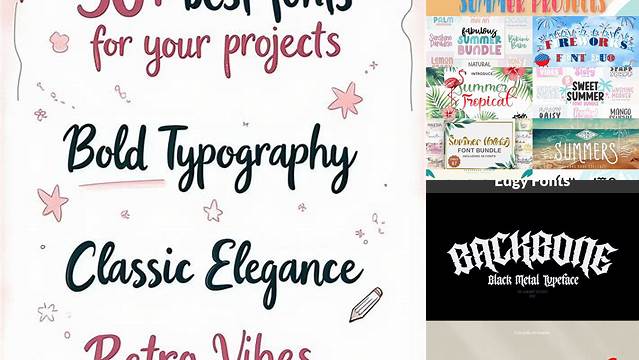
Cool Fonts: Free Downloads To Elevate Your Design
Hey there, design enthusiasts! Ready to jazz up your projects with some awesome typography? Finding the perfect font can be a game-changer, whether you're working on a website, a presentation, or even just a cool social media post. Let’s dive into the world of cool fonts free download and explore how you can snag some amazing typefaces without spending a dime. Get ready to level up your design game, guys!
1. The Allure of Unique Typography
So, why is typography so important anyway? Well, think of it as the voice of your design. A killer font can convey emotion, personality, and even the entire message you're trying to send. A playful, bubbly font screams fun and creativity, while a sleek, modern font communicates professionalism and innovation. The right typography can grab attention, set the tone, and make your content stand out from the crowd. Plus, using unique and cool fonts can help you establish a distinct brand identity. Ever seen a logo and instantly recognized the company just from the font? That's the power of typography, my friends! And the best part? You don’t always have to pay an arm and a leg to get your hands on some awesome fonts. There are tons of resources out there offering cool fonts free download. From quirky handwritten styles to bold display fonts, the possibilities are endless. By exploring these free options, you can experiment with different looks and find the perfect match for your projects without breaking the bank. Remember, choosing the right font is like picking the perfect outfit – it needs to fit the occasion and make a statement. So, let's get hunting for those free gems and start creating some visually stunning designs!
4. Trendy Font Styles Right Now
Want to stay ahead of the curve? Knowing what's hot in the font world can give your designs that extra edge. Right now, we're seeing a lot of love for retro and vintage fonts. Think groovy serifs, funky script fonts, and fonts that evoke a sense of nostalgia. These fonts are perfect for adding a touch of character and personality to your designs. Another popular trend is bold and chunky sans-serif fonts. These fonts are all about making a statement, and they work great for headlines, logos, and branding. On the opposite end of the spectrum, minimalist and geometric fonts are also having a moment. These fonts are clean, modern, and versatile, making them ideal for a wide range of applications. And let's not forget about handwritten and brush script fonts. These fonts add a personal and authentic touch to your designs, and they're perfect for invitations, social media posts, and anything that needs a little bit of warmth. Of course, these are just a few of the many cool fonts free download trends that are out there right now. The best way to find your own style is to experiment with different fonts and see what resonates with you. So, go ahead and explore the world of typography – you might just discover your new favorite font!
5. How to Pair Fonts Like a Pro
Okay, so you've found a couple of cool fonts free download that you love. Now what? The key to great typography is knowing how to pair fonts together effectively. The goal is to create a harmonious and visually appealing combination that enhances your message. A good rule of thumb is to pair a display font with a more readable body font. Display fonts are those eye-catching fonts that are perfect for headlines and titles, while body fonts are designed for longer blocks of text. For example, you could pair a bold sans-serif display font with a classic serif body font. This creates a nice contrast that makes your design more interesting. Another tip is to consider the personality of the fonts. Do they complement each other? Do they clash? You want to choose fonts that have a similar vibe, but aren't too similar. For example, pairing two handwritten fonts together might be overkill, while pairing a handwritten font with a clean sans-serif font can create a nice balance. And finally, don't be afraid to experiment. Try out different combinations and see what works best for your project. There are plenty of online resources that can help you find great font pairings, such as FontPair and Typewolf. With a little bit of practice, you'll be pairing fonts like a pro in no time!